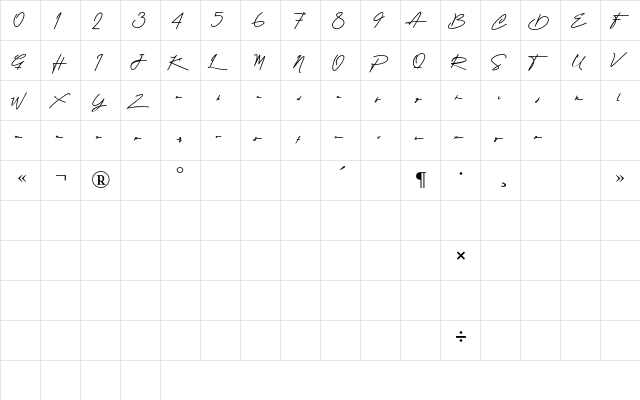
Attention Script Regular
| Designer | Andi Imam Rosady |
Design Context for Attention Script Typeface
Attention Script brings a calligraphic fluidity to the page — its connecting strokes and expressive curves give it an unmistakably human quality.
Font Pairing: Combine Attention Script with a simple geometric sans for maximum contrast — the tension between flowing curves and clean structure is a classic typographic pairing.
Pro Tip: Use Attention Script for short runs of text — names, titles, or taglines. Extended body copy in script faces tires the eye quickly.